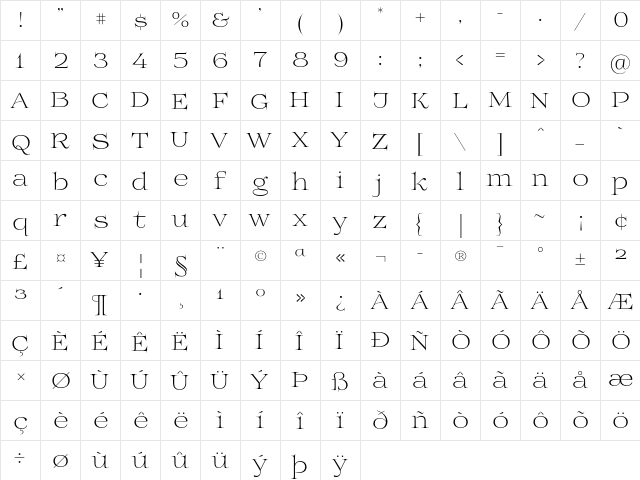
Prida01 Light
| Foundry | gluk |
| Designer | gluk |
Design Context for Prida01 Typeface
Prida01 takes a measured approach to typography — its balanced proportions and neutral character make it a reliable workhorse for both digital and print work. Its slender proportions lend an understated elegance to any composition.